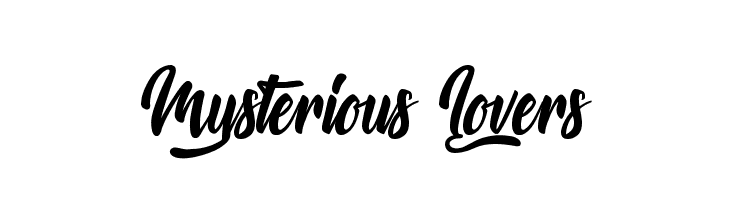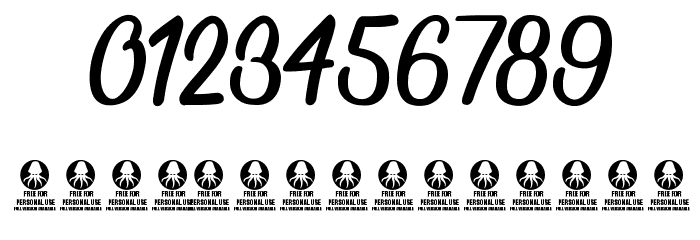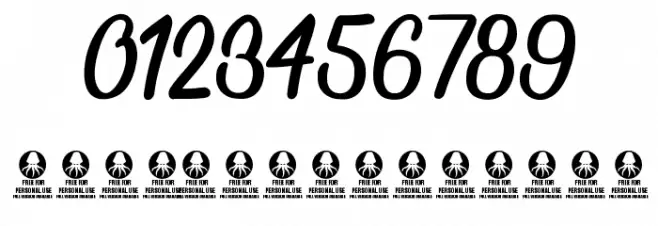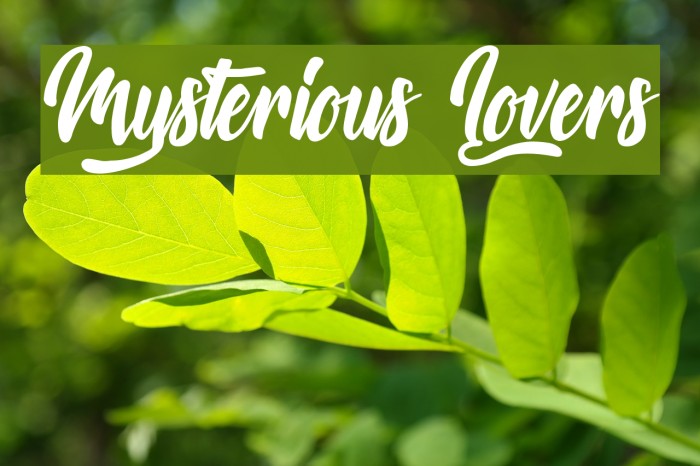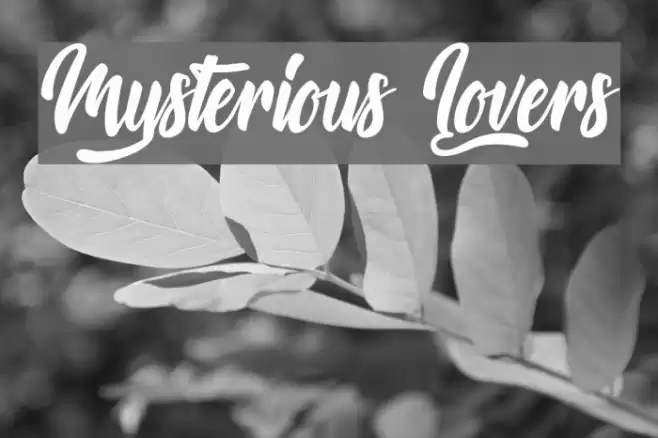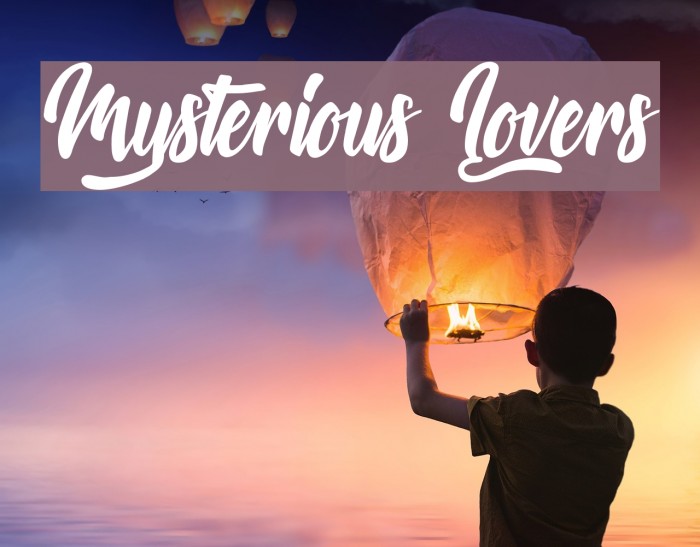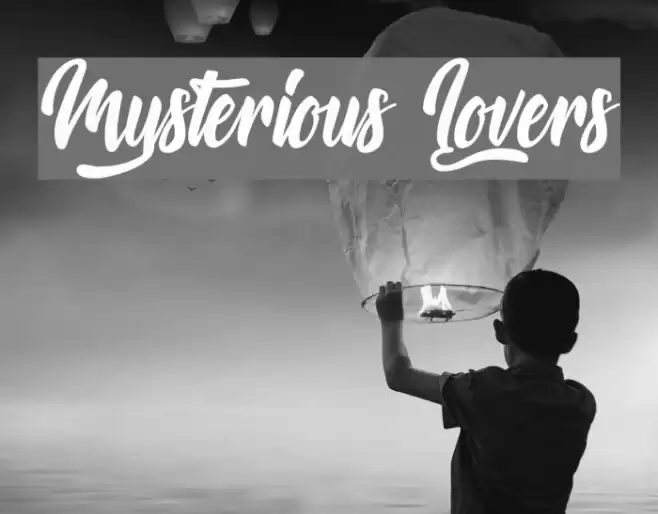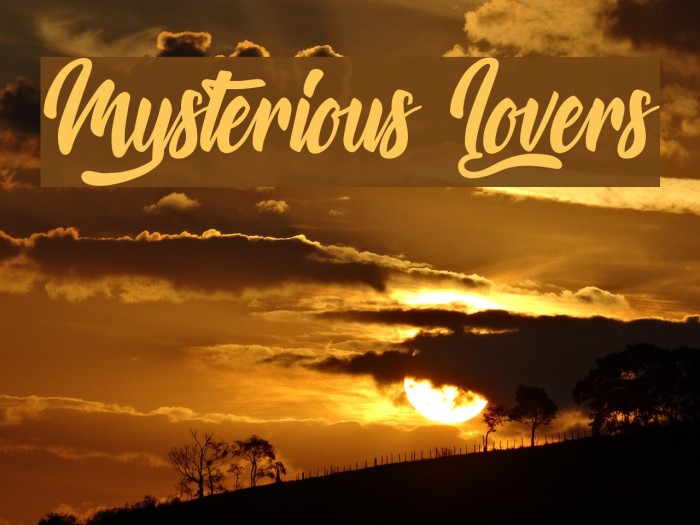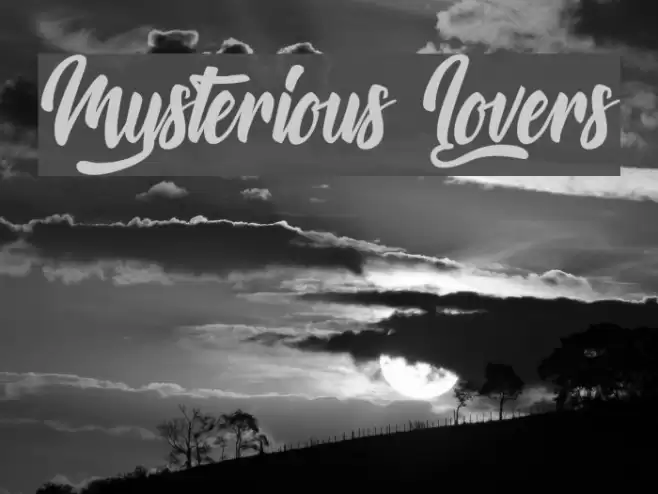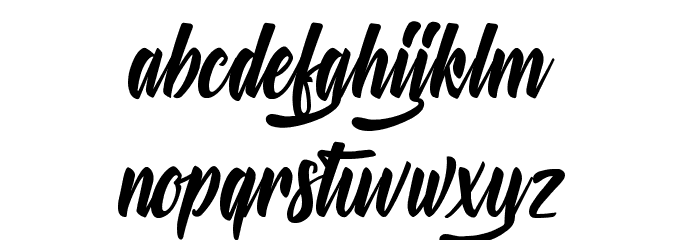
Mysterious Lovers Font
This font features a dynamic and flowing script style, characterized by its elegant and cursive letterforms. The uppercase letters exhibit a graceful, sweeping motion with a slight slant, while the lowercase letters maintain a consistent fluidity, enhancing the overall aesthetic. The numerals are designed with a similar flair, ensuring uniformity across all characters. This font's design is both sophisticated and approachable, making it suitable for a variety of creative applications. The special characters, including symbols like $, ?, &, %, !, #, *, and =, are seamlessly integrated, maintaining the font's cohesive look.
A dynamic and flowing script font with elegant cursive letterforms.
• Proposed Projects: Ideal for wedding invitations, greeting cards, branding projects, and elegant packaging designs.
• Category: Script
• Overall Style: Elegant
• Use Case: Logos, Invitations, Branding